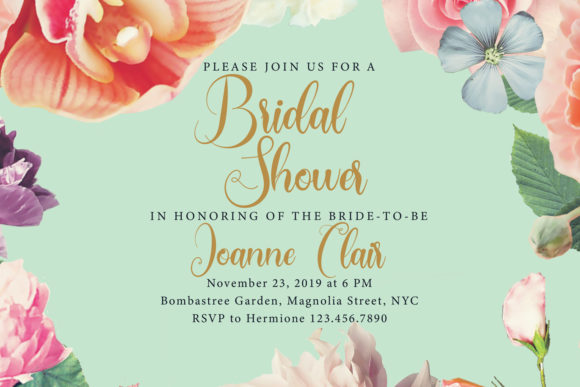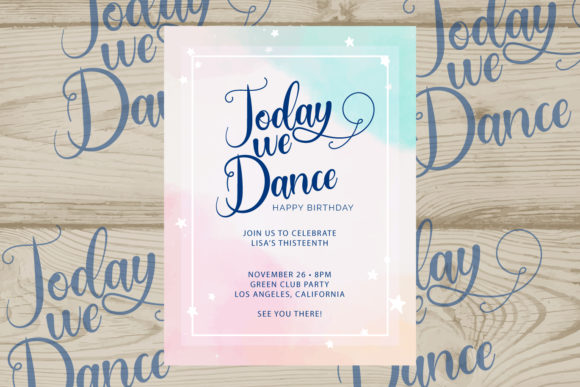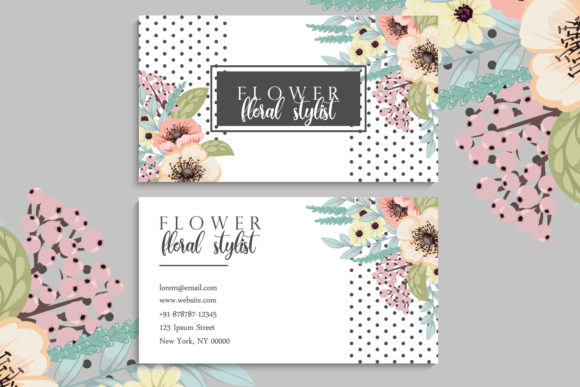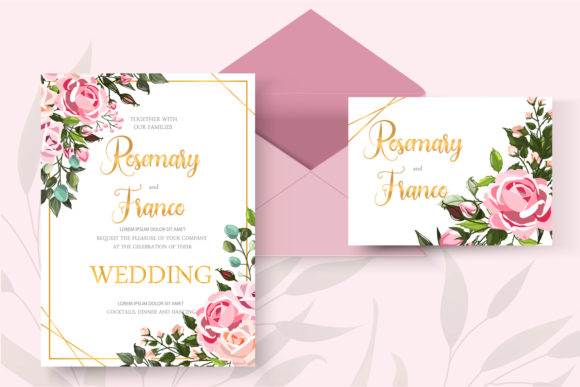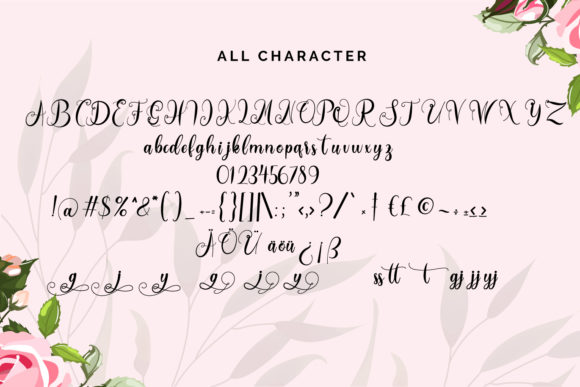
HomeScript FontsHogituey Font Script Fonts Hogituey Font FacebookXPinterestWhatsApp Hogituey Font Poster 2 Hogituey Font Poster 3 Hogituey Font Poster 4 Hogituey Font Poster 5 Hogituey Font Poster 6 About Hogituey Font Hogituey is a lovely script typeface with charming style. Fall in love with its elegant appearance! DOWNLOAD ON CREATIVE FABRICAThis font is sold and delivered by Creative Fabrica. Font Canyon may earn a commission if you buy through this link. People also explored The Blood Font Better Us Font Mallent Font Paper & Brush Mockup Maclodia Font Sweetest Font Happy Valentine Font Ragtime Font Honestly Brigtea 324 0 TagsHogituey Font Previous articleKellang Rika FontNext articleMaracass Script Font LEAVE A REPLY Cancel reply Comment: Please enter your comment! Name:* Please enter your name here Email:* You have entered an incorrect email address! Please enter your email address here Website: Save my name, email, and website in this browser for the next time I comment. Personal Use Free The Lima Personal Use Free Read more about this font Rafika Personal Use Free Read more about this font Burnstown Dam Personal Use Free Read more about this font Street Cred Personal Use Free Read more about this font BLOG Top 7 Google Fonts Alternatives for Faster and Privacy-Friendly Web Design (2025) Top 7 Google Fonts Alternatives for Faster and Privacy-Friendly Web Design (2025) When it comes to web typography, Google Fonts has long been the go-to... Free Fonts Risk: Why Free Fonts Can Be Dangerous for Designers Exploring Font Trends Best Fonts for T-Shirt Design – Top 2025 Picks